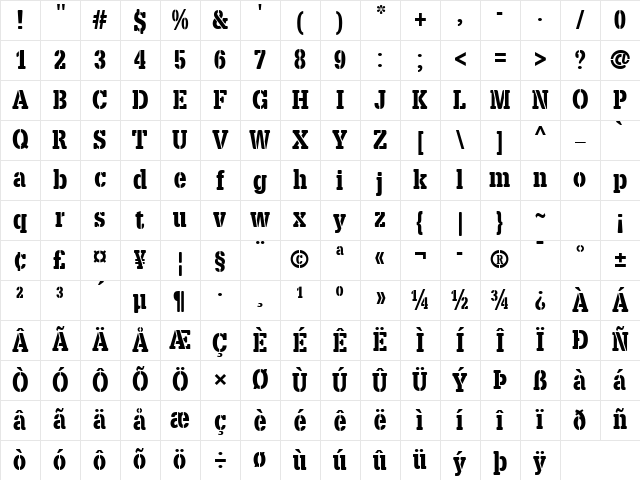
X.Template Regular
Foundry: deFharo
Designer: deFharo
Design Context for X.Template
X.Template is a composed and adaptable typeface that performs quietly and consistently across a wide range of design contexts.